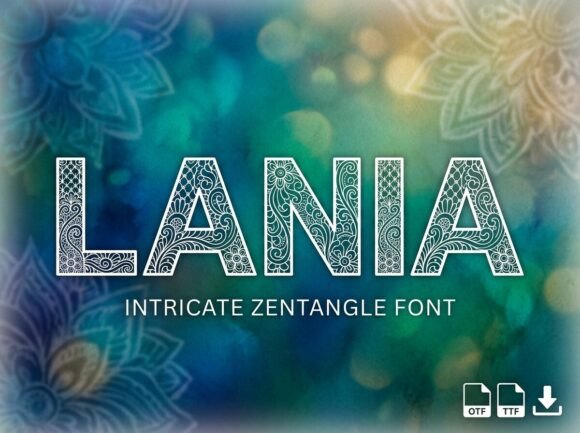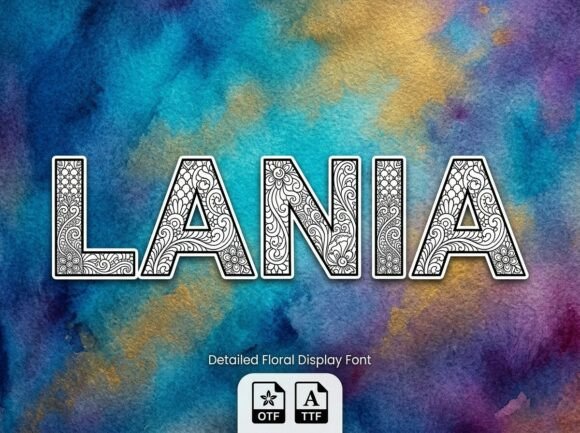
Introduction to Lania Font
Have you ever been stuck on a creative project, desperately searching for that perfect design element to elevate your work from ordinary to extraordinary? We’ve all been there. It’s the moment when a single, well-chosen font can transform the entire vibe of your project, making it stand out from the crowd. That’s exactly what the Lania Font is designed to do – to be the center of attention, to make your work shine, and to leave a lasting impression.
As a valuable design resource, Lania Font offers a unique blend of artistic elements and a strong visual personality, making it perfect for bold headlines, artistic logos, and creative packaging. Whether you’re working on a high-quality project or simply need a design that exudes professionalism and polish, this font is sure to deliver. And with its transparent background and versatile file formats, including OTF and TTF files, you can be sure that your design will look its best across all devices.
Key Features of Lania Font
- High-quality design resource suitable for various creative projects, including logos, graphics, and digital art.
- Designed with a high-resolution output in mind, making it suitable for use in print and digital media at 300 DPI.
- Unique and stylish design makes Lania Font an excellent addition to any design project, adding a touch of sophistication and elegance.
- Perfect for designers looking for a versatile and high-quality font that can be used in a variety of creative contexts.
Honest Review: Lania Font
I recently stumbled upon the Lania Font, and I must say it’s a great addition to any designer’s toolkit. As a design enthusiast, I’m always on the lookout for high-quality design resources that can elevate my creative projects.
The Lania Font boasts a beautiful, elegant design that’s perfect for a variety of uses, from branding to typography. I particularly appreciate the transparent background, which makes it easy to work with and ensures seamless integration with any design.
Here are some things that work well with the Lania Font:
- ✨ Elegant design that’s perfect for branding and typography
- ✨ Great for use in digital design projects
- ⚠️ Limited font styles and variations
- ⚠️ Not suitable for print design projects (due to font size limitations)
Overall, I’m impressed with the Lania Font. While it may not be perfect, it’s a great free download that’s perfect for digital design projects. I would definitely recommend it to fellow designers looking for a high-quality, elegant font.
Tips for Getting the Most Out of Lania Font
To get the most out of Lania Font, use it on a transparent background to create a clean and minimalist design. You can also experiment with different font sizes and styles to add visual interest to your design.
Lania Font is commonly used in graphic design, digital art, and branding projects. It’s also a great resource for creating social media graphics, flyers, and brochures.